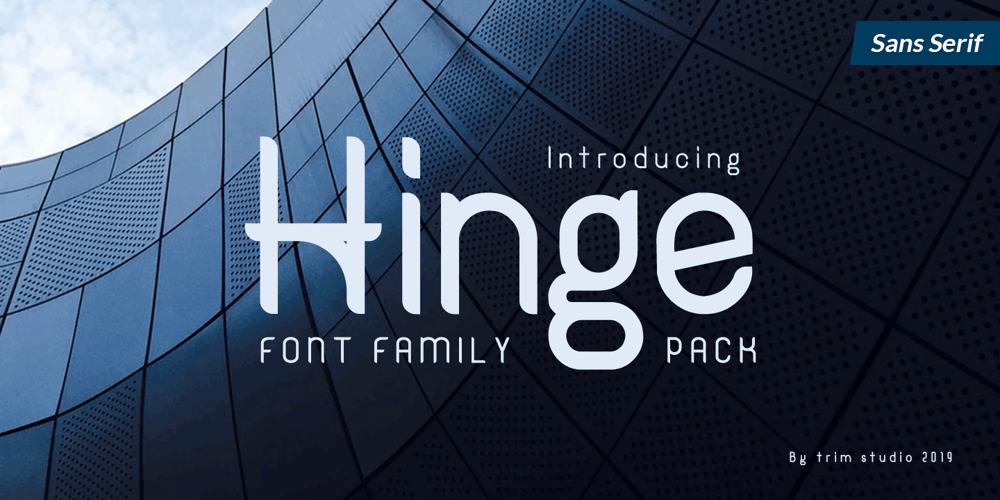
Hinge Font Family was designed by Deri Kurnia and published by Trim Studio. Hinge contains 6 styles and family package options. Hinge is a modern font with a tradition feel on it. Inspired by curves and round touches of classic feel.